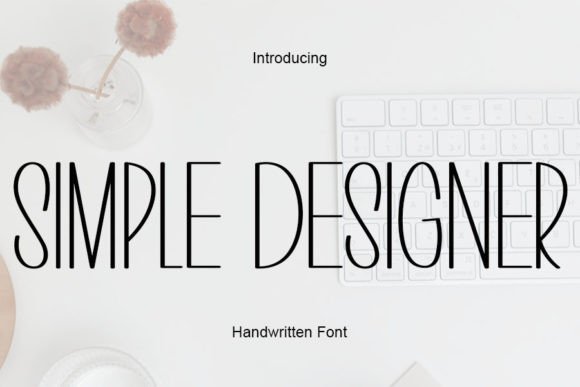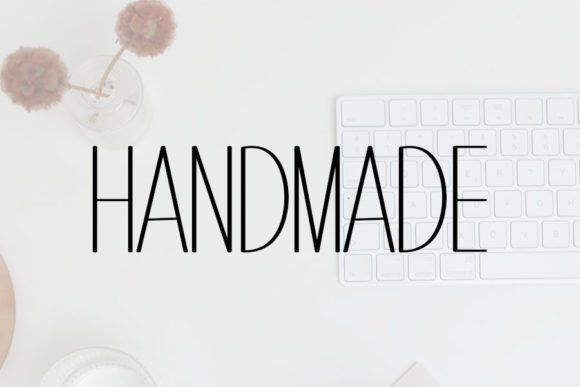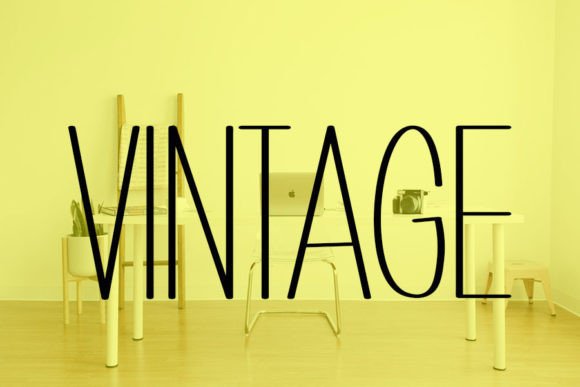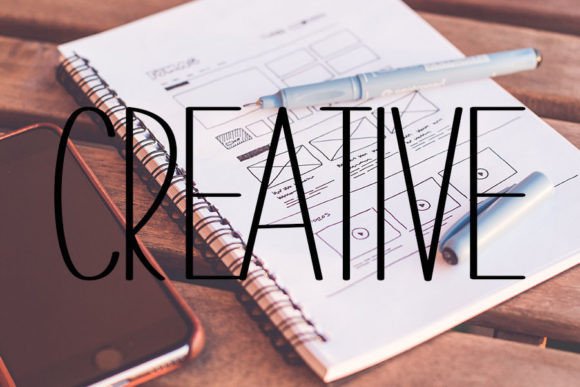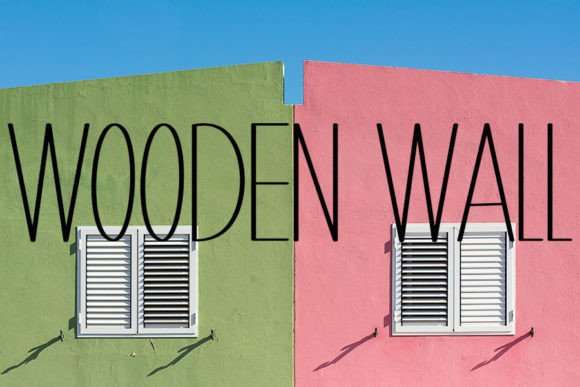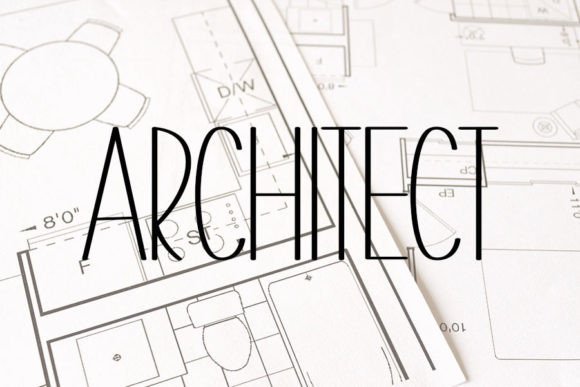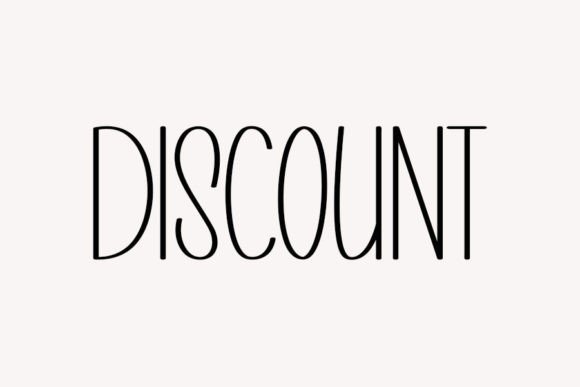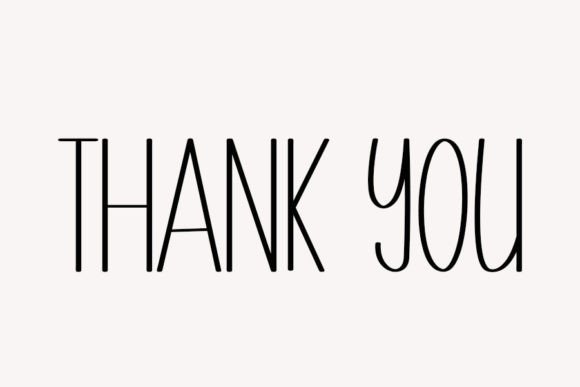
Simple Designer Font
About Simple Designer Font
Simple Designer font is a neat and beautiful handwritten typeface characterized by an elegant touch. It offers a unique combination of simplicity and sophistication that helps elevate your design projects. Whether you are crafting logos, invitations, or social media graphics, this font’s timeless style makes it an excellent choice.
Elegant Handwriting Style
Simple Designer features smooth, flowing strokes that mimic authentic handwriting. This natural look adds warmth and personality to your text, making your designs feel approachable yet refined. Its balanced letterforms ensure readability while maintaining an artistic flair.
Versatile Applications
This font suits a broad spectrum of creative projects. It works wonderfully for wedding invitations, greeting cards, quotes, branding, and business cards. Furthermore, Simple Designer is perfect for digital design, including websites, blogs, and social media posts, where a clean and elegant handwritten touch is needed.
Why Choose Simple Designer Font?
Simple Designer font stands out for its neat and timeless style. It effortlessly blends into various design themes, from minimalistic to classic. The font’s elegant touch adds a sense of grace and professionalism to your projects, helping you communicate your message with clarity and style.
Enhance Your Creativity
By using Simple Designer font, you can add sophistication and charm to any project. Its versatile design allows you to create spectacular visuals that capture attention and express your unique creativity. Whether for personal or professional use, this font is a valuable asset for your design toolkit.